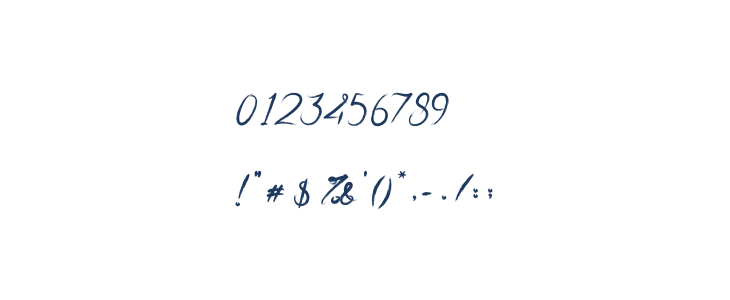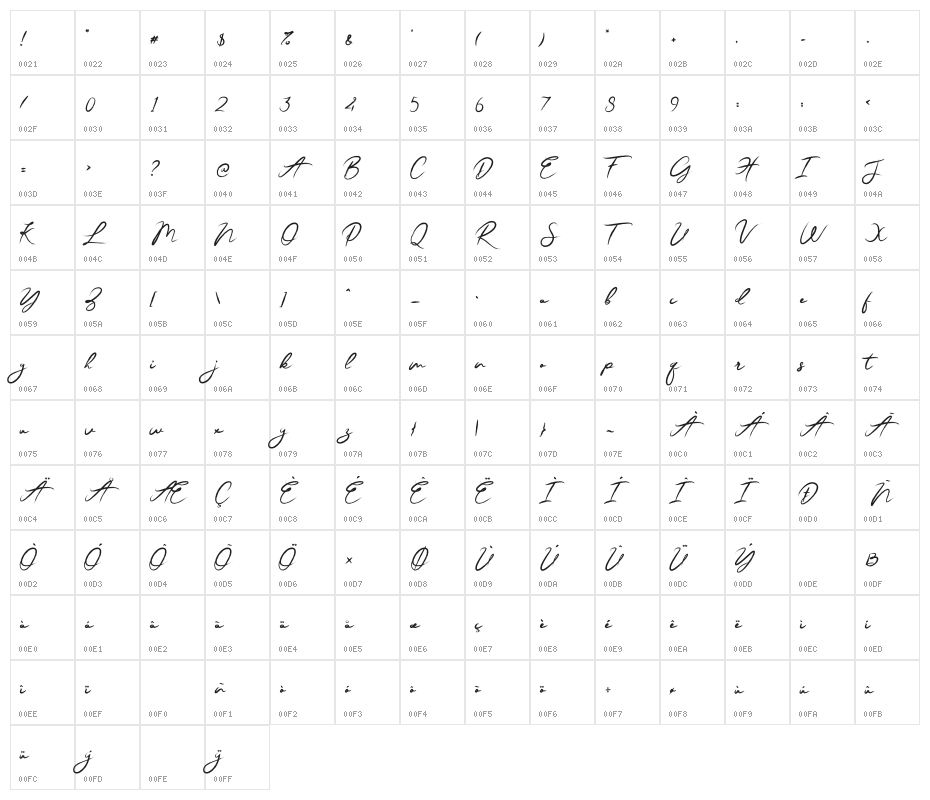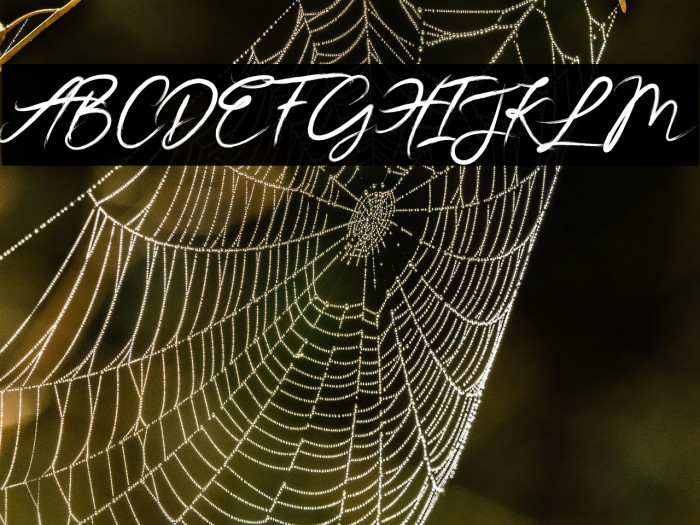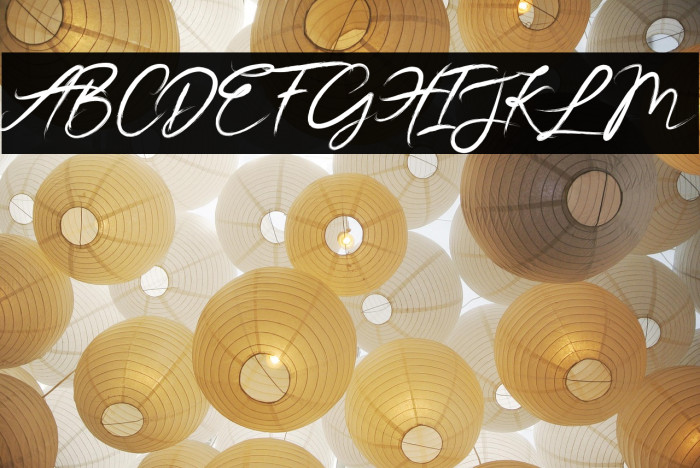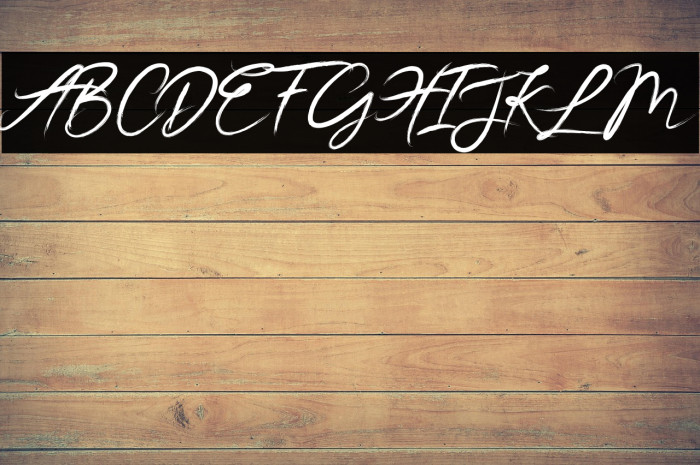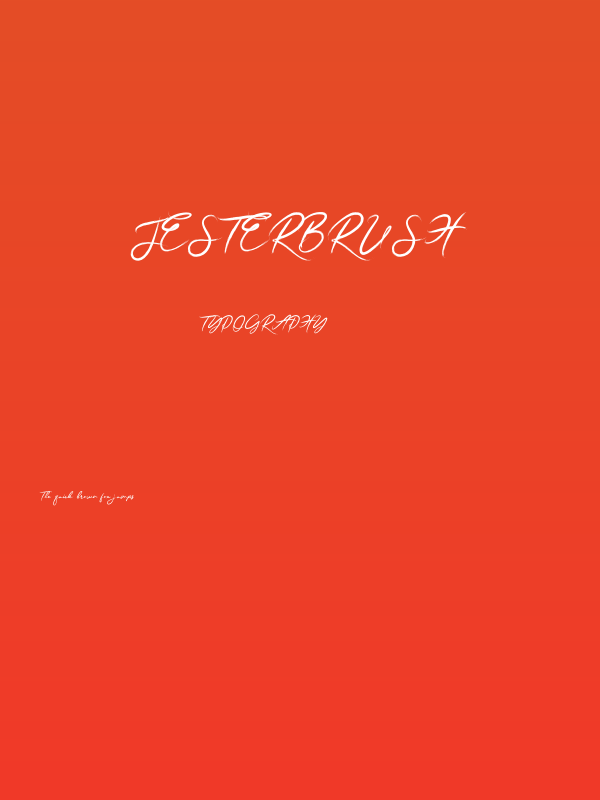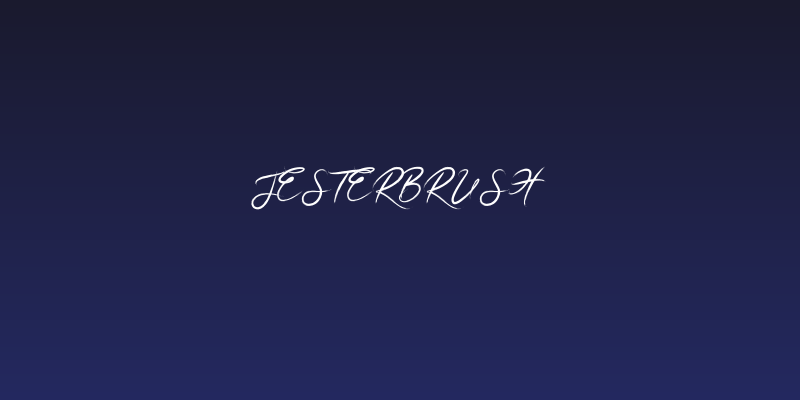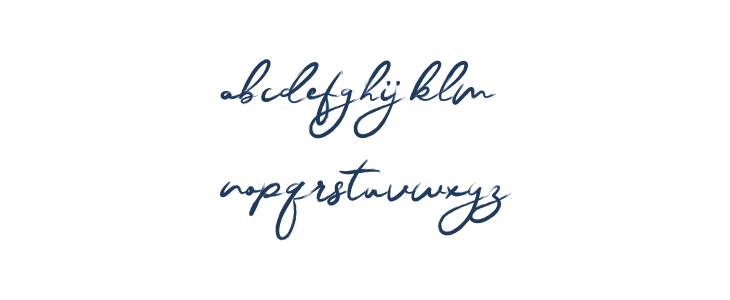
JesterBrush Font
JesterBrush Description
This font exudes a playful and artistic flair, characterized by its brush-like strokes and fluid, cursive style. The uppercase letters are bold and dynamic, with a sense of movement that suggests a hand-painted quality. The lowercase letters maintain this fluidity, offering a harmonious blend of elegance and spontaneity. Numbers and special characters are crafted with the same attention to detail, ensuring consistency across all glyphs. The overall appearance is both expressive and stylish, making it ideal for creative projects that require a touch of personality and charm.
| Use Case | Logos, Headlines, Artistic projects |
| Proposed Projects | Ideal for greeting cards, invitations, branding, and artistic posters. |